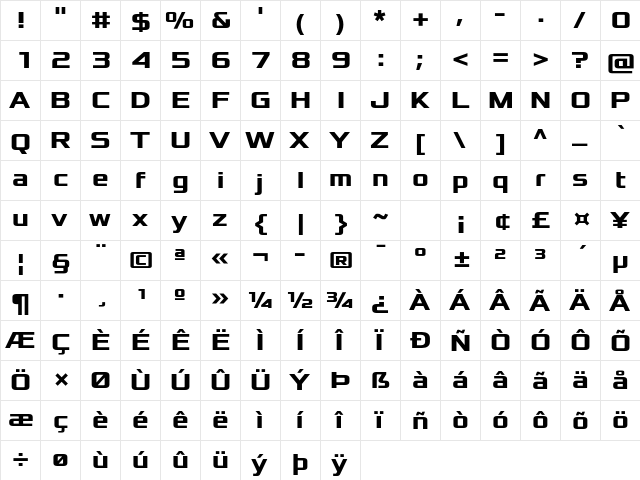
Xolonium Bold
Bold ·  Severin Meyer ·
Design Context for Xolonium Typeface
Xolonium is a composed and adaptable typeface that performs quietly and consistently across a wide range of design contexts. Its bold stroke weight gives it real presence on the page.